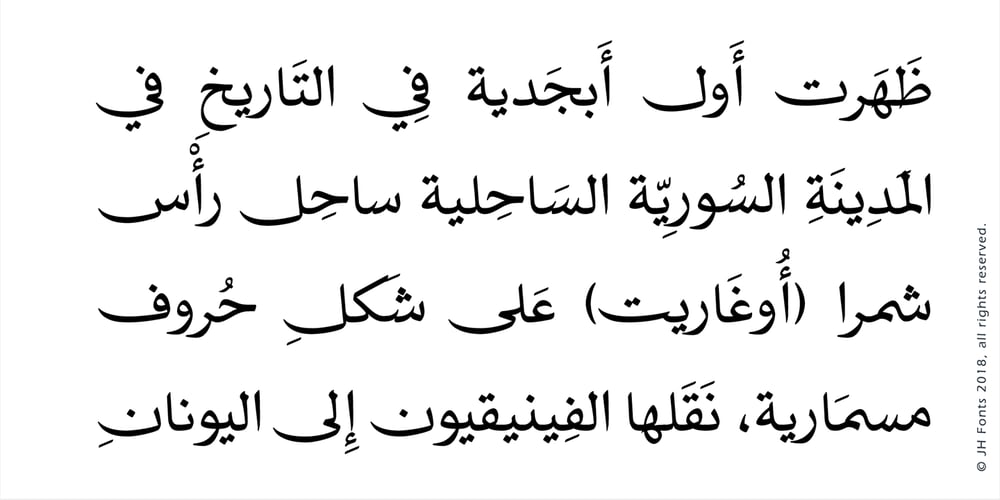
JH Naskh Expanded
JH Naskh Expanded font
JH Naskh Expanded Font Family was designed by Joe Hatem and published by JH Fonts. JH Naskh Expanded contains 1 styles and family package options. JH Naskh Expanded font is designed based on Naskh calligraphy; it is typical for book covers including spine, headlines, short text paragraphs, poetry…..